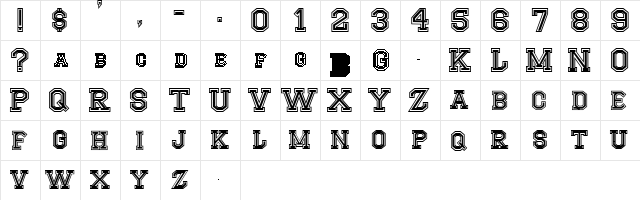
CF Montreal High School Regular
| Foundry | CloutierFontes |
| Designer | Steve Cloutier |
Design Context for CF Montreal High School Typeface
CF Montreal High School is a composed and adaptable typeface that performs quietly and consistently across a wide range of design contexts.